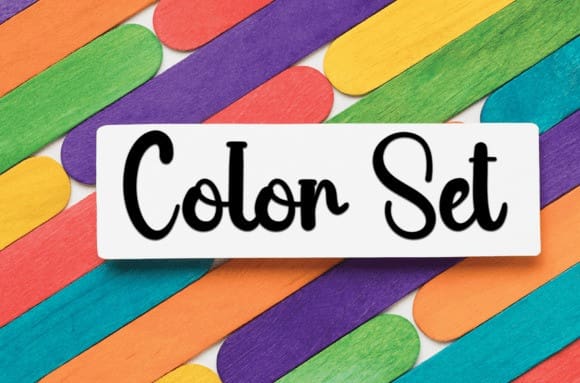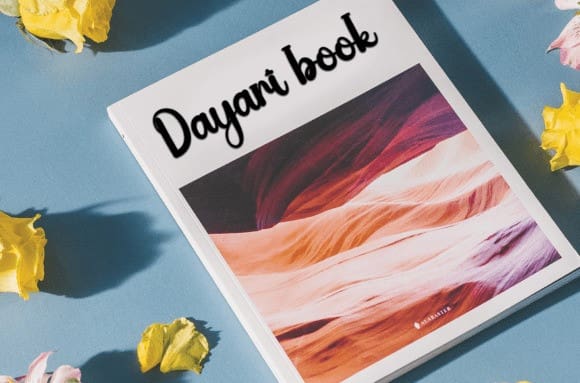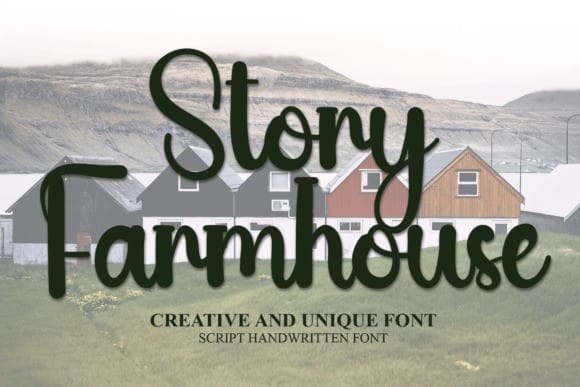
Story Farmhouse Font
Story Farmhouse Font is a sweet and friendly handwritten font. Fun and relaxed, this font is ideal for writing wedding invitations, cards, or any other design that might need a joyful touch!